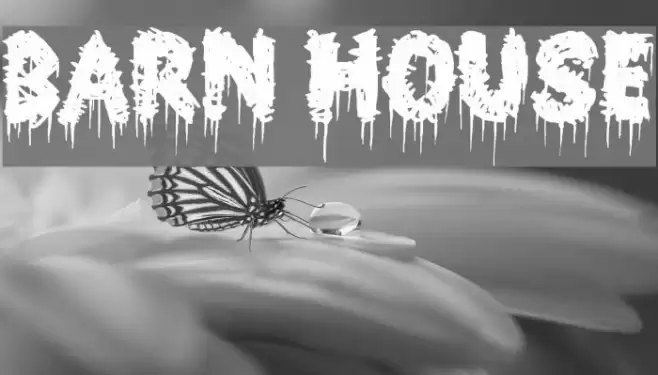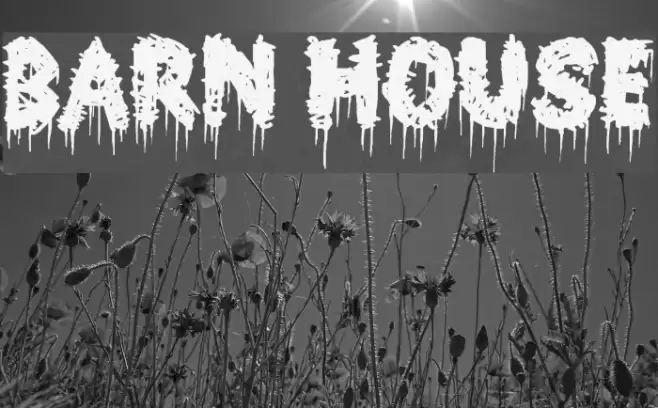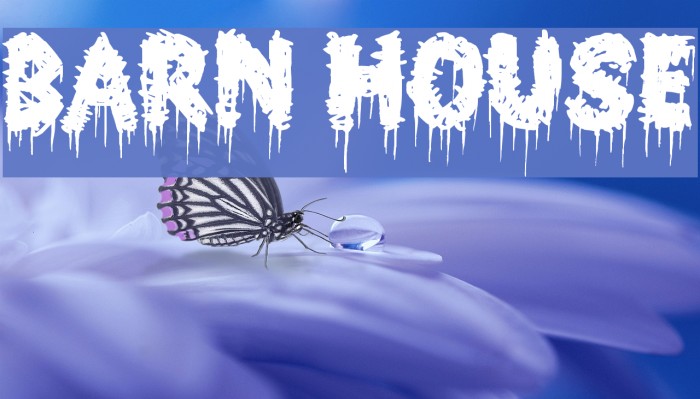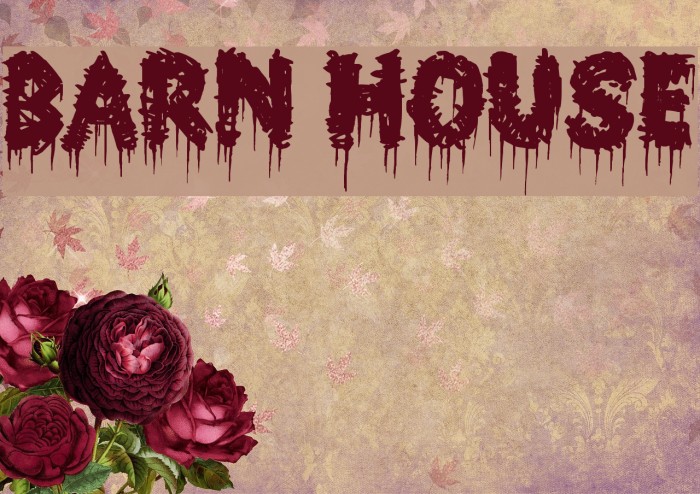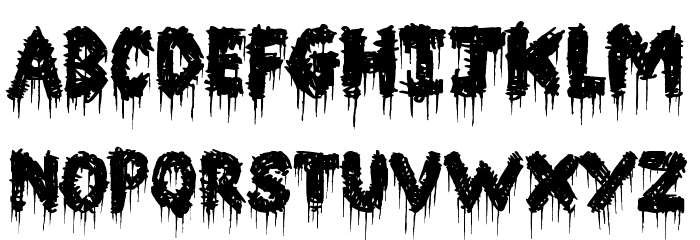
Barn House Font
Barn House Description
This font features a bold and dramatic design with a dripping effect that gives it a grungy, horror-inspired look. The uppercase letters are heavily stylized, with each character appearing as if it's melting or dripping downwards. This creates a sense of movement and chaos, making it ideal for designs that require a strong visual impact. The font's unique style is perfect for Halloween-themed projects, horror movie posters, or any creative work that aims to evoke a sense of mystery and unease. Its distinct appearance ensures that it stands out in any context.
A bold, dripping font with a grungy, horror-inspired aesthetic from Horror fonts.
- Proposed Projects: Ideal for Halloween designs, horror movie posters, edgy album covers, and themed event invitations.
- Use Case: Headlines, Posters, Logos